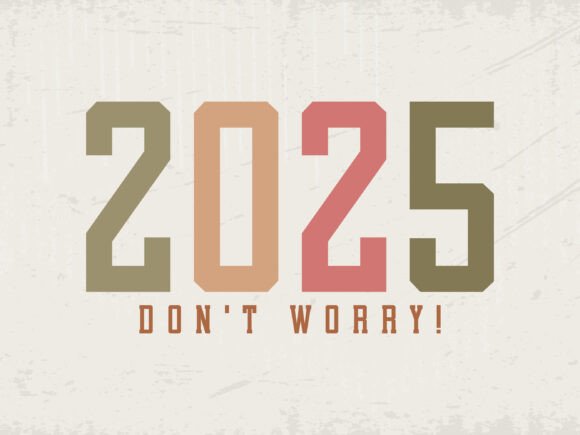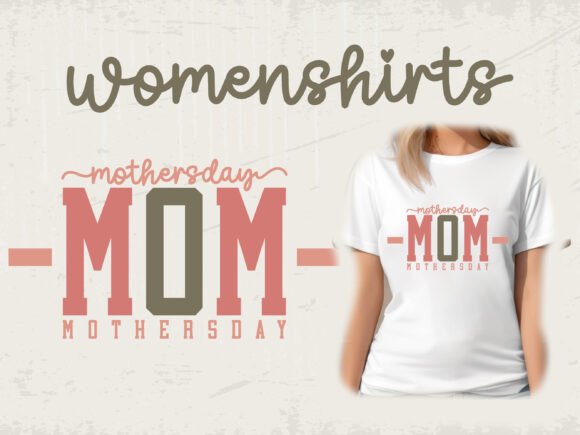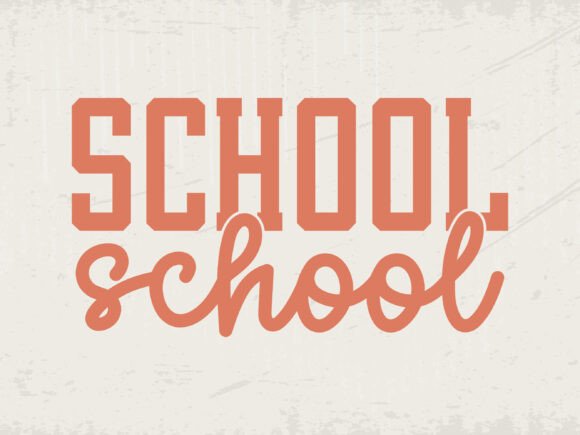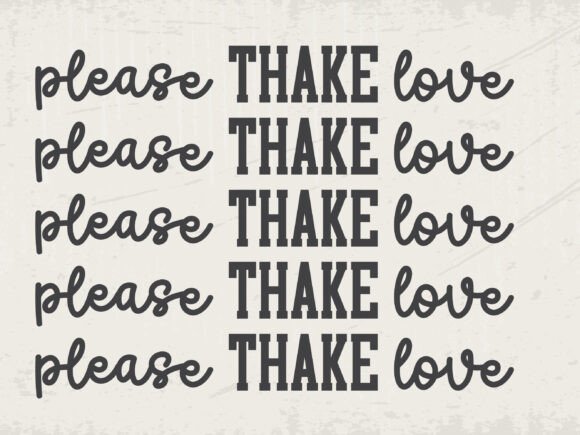
Introducing College Duo Font: Elevate Your Designs with a Winning Style
Are you a designer, crafty enthusiast, or professional looking for the perfect font to elevate your projects? Look no further than College Duo Font, a versatile and stylish serif font designed to make your branding, logos, and graphics stand out. In this article, we’ll dive into the features and benefits of College Duo Font, and explore how it can help you achieve your creative goals.
What is College Duo Font?
College Duo Font is a carefully crafted serif font that combines sporty uppercase and script lowercase letters, making it perfect for creating visually appealing designs. The font includes a full set of display letters, numerals, punctuation, and other symbols, providing you with everything you need to create stunning graphics. Whether you’re working on a sports-themed project, web graphics, or a professional branding campaign, College Duo Font is the ideal choice.
Key Features of College Duo Font
- Sporty Uppercase and Script Lowercase Letters: The font features a unique blend of sporty uppercase letters and script lowercase letters, creating a distinctive duo style that’s sure to grab attention.
- Full Set of Display Letters and Symbols: College Duo Font includes a comprehensive set of display letters, numerals, punctuation, and other symbols, giving you the flexibility to create a wide range of designs.
- Serif Font: The serif font style adds a touch of sophistication and elegance to your designs, making it perfect for professional projects.
Perfect for Sports-Themed Design Projects
College Duo Font is specifically designed with sports-themed projects in mind. The font’s sporty uppercase letters and script lowercase letters evoke the spirit of competition and teamwork, making it perfect for:
- Team Logos: Create a memorable logo for your favorite team or sports brand with College Duo Font.
- Sports Jerseys: Design stunning sports jerseys with the font’s bold and stylish letters.
- Event Posters: Promote your sports event with eye-catching posters featuring College Duo Font.
Ideal for Web Graphics and Professional Branding
College Duo Font is not just limited to sports-themed projects. Its versatility and stylish design make it an excellent choice for:
- Web Graphics: Enhance your website’s visual appeal with College Duo Font, perfect for headings, titles, and more.
- Professional Branding: Establish a strong brand identity with College Duo Font, suitable for logos, business cards, and marketing materials.
- T-Shirt Designs: Create stunning t-shirt designs with College Duo Font, perfect for personal or commercial use.
Benefits of Using College Duo Font
By choosing College Duo Font, you’ll enjoy numerous benefits, including:
- Unique and Memorable Designs: Stand out from the crowd with College Duo Font’s distinctive duo style.
- Time-Saving: The font’s comprehensive set of display letters and symbols saves you time and effort in designing your projects.
- Easy to Read: The serif font style ensures that your designs are easy to read, even at small sizes.
College Duo Font is an exceptional serif font designed to elevate your designs and help you achieve your creative goals. With its sporty uppercase and script lowercase letters, full set of display letters and symbols, and easy-to-use design, it’s perfect for sports-themed projects, web graphics, professional branding, and more. Whether you’re a designer, crafty enthusiast, or professional, College Duo Font is an excellent addition to your font library.